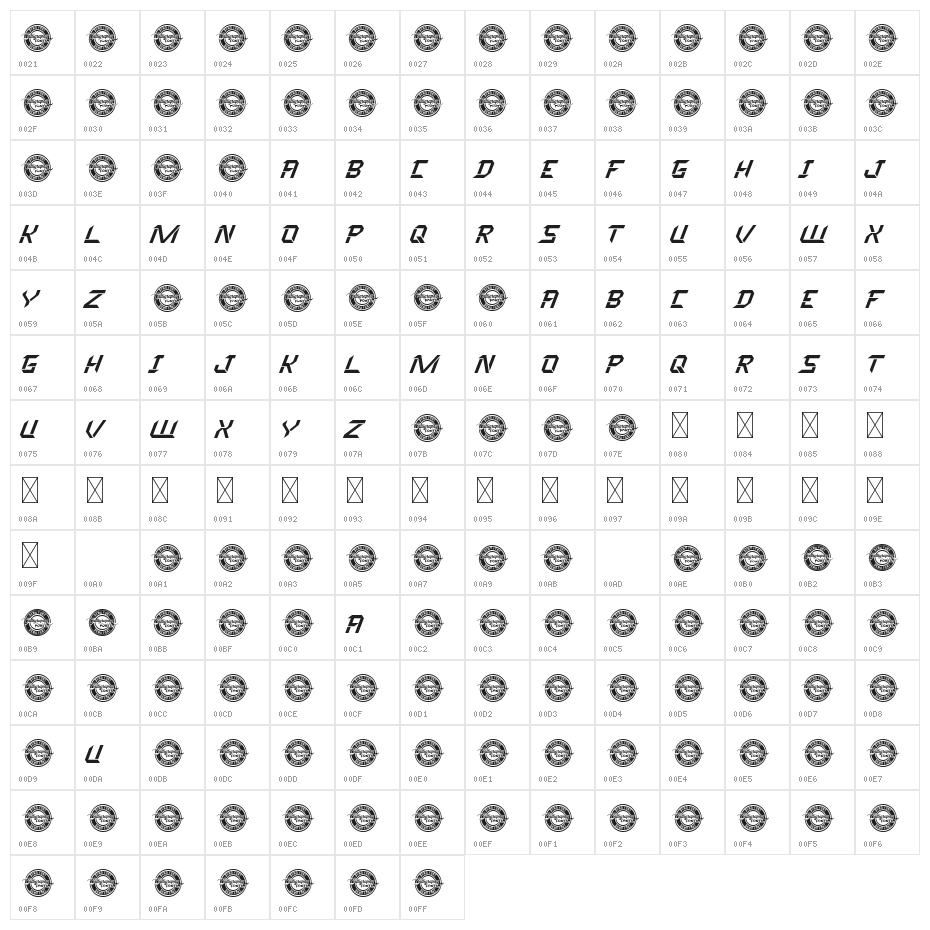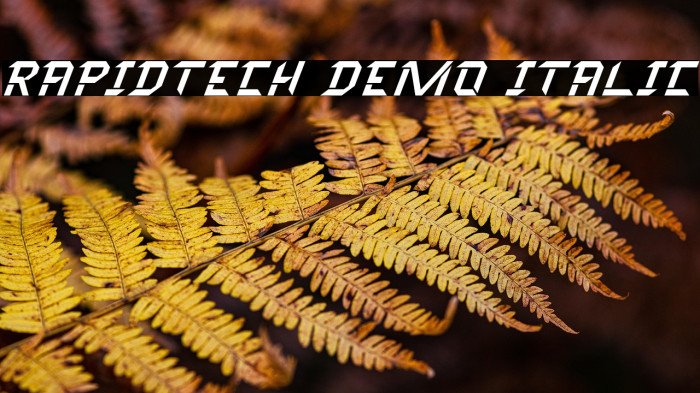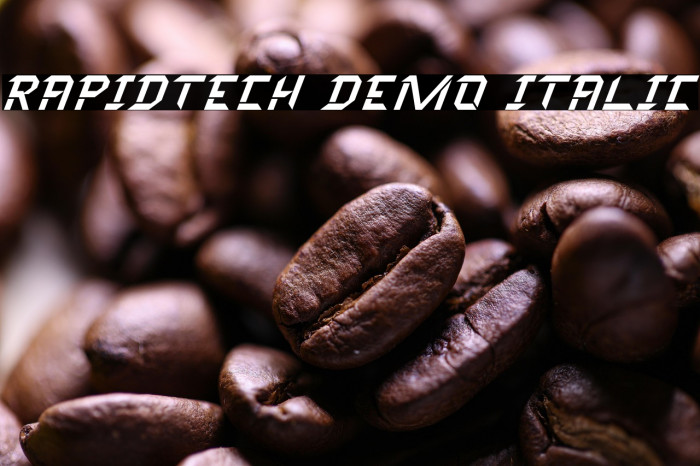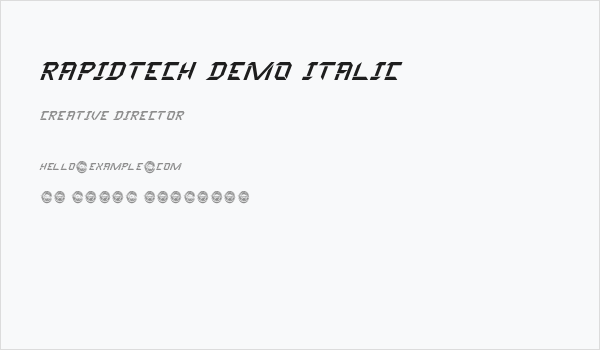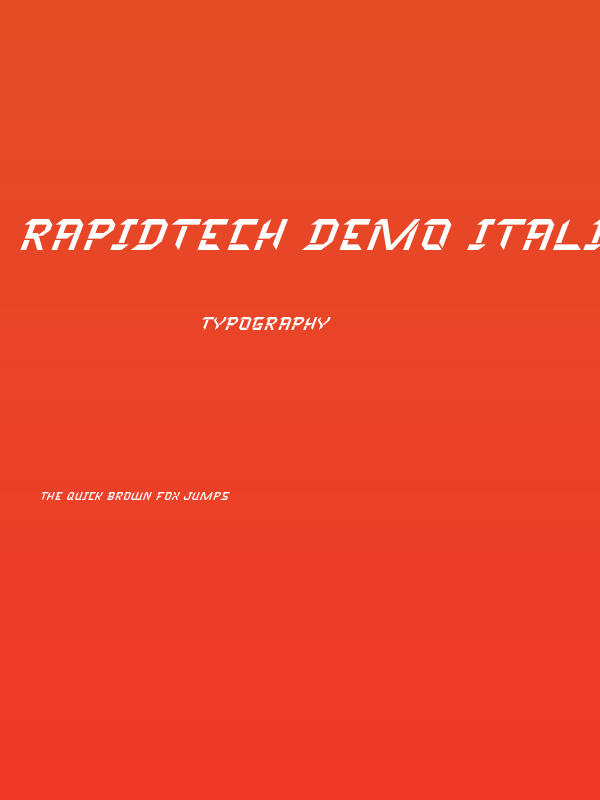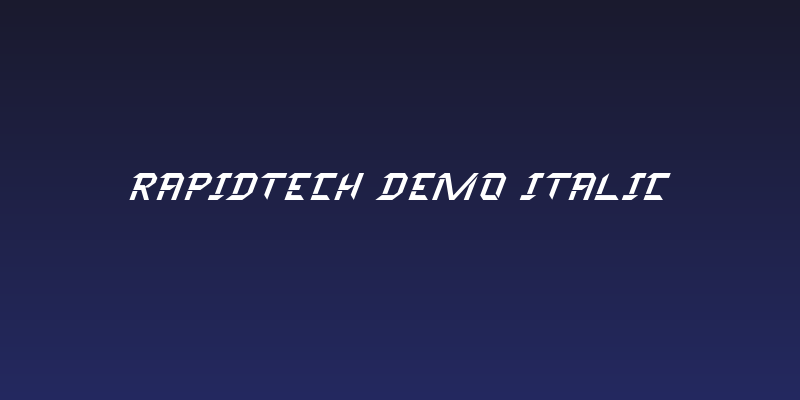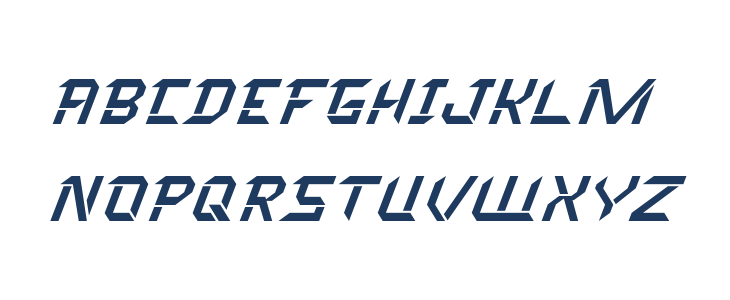
Rapidtech Demo Italic Font
Rapidtech Demo Italic Description
This font features a futuristic and angular design, characterized by sharp edges and a dynamic slant that gives it a sense of motion and speed. The uppercase letters are bold and geometric, with a consistent slant that adds to the italicized appearance. The font's structure is clean and precise, making it suitable for modern and tech-oriented projects. The absence of curves and the emphasis on straight lines and angles create a unique and striking visual impact. This font is ideal for projects that require a contemporary and edgy look, such as technology branding, sports team logos, or sci-fi themed designs.
| Use Case | Logos, Headlines |
| Proposed Projects | Technology branding, sports team logos, sci-fi themed designs, modern advertisements. |